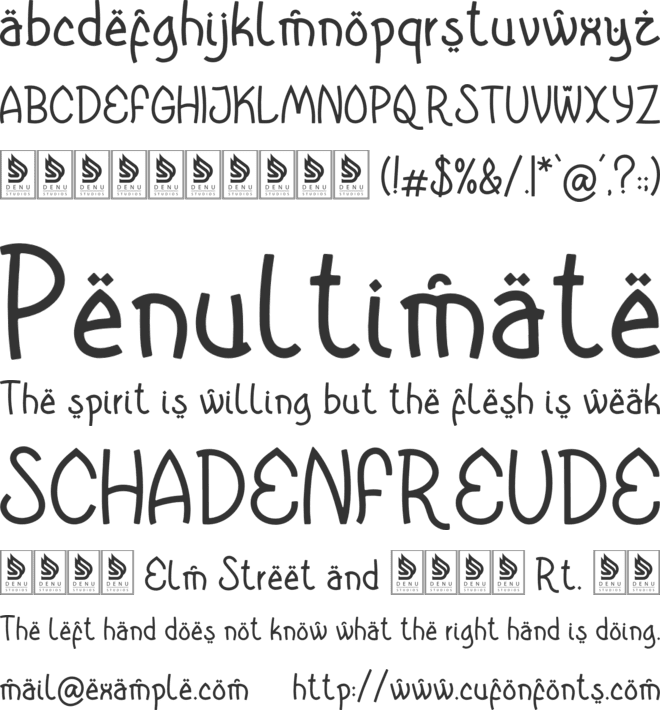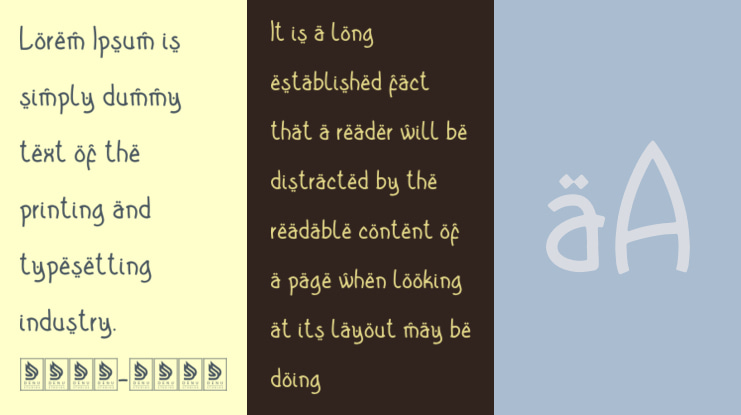
Raqasy | Hand Drawn Arabic product packaging, mugs, quotes, posters, shopping bags, t-shirts, book covers, name card, invitation cards, greeting cards, label, photography, watermark, special events, and all your other lovely projects that need a Arabic taste.